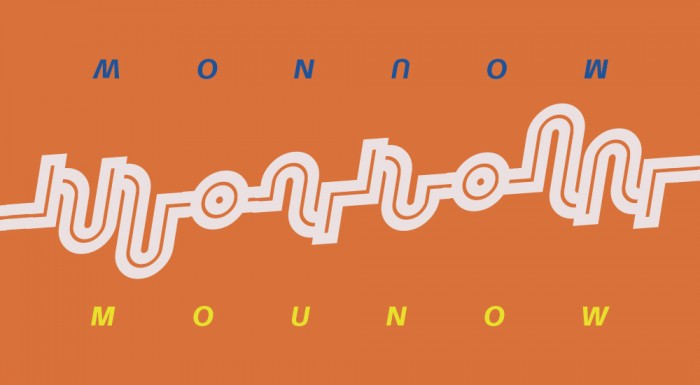
Novel lines for well known glyphs, this is an exciting script!
Let me guess, connecting bricks
What an excellent approach to ambigram script.
A little bit hard to read, but very elegant.